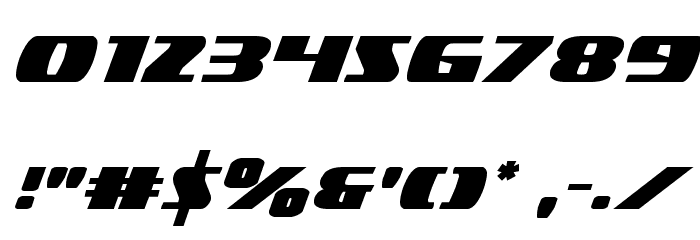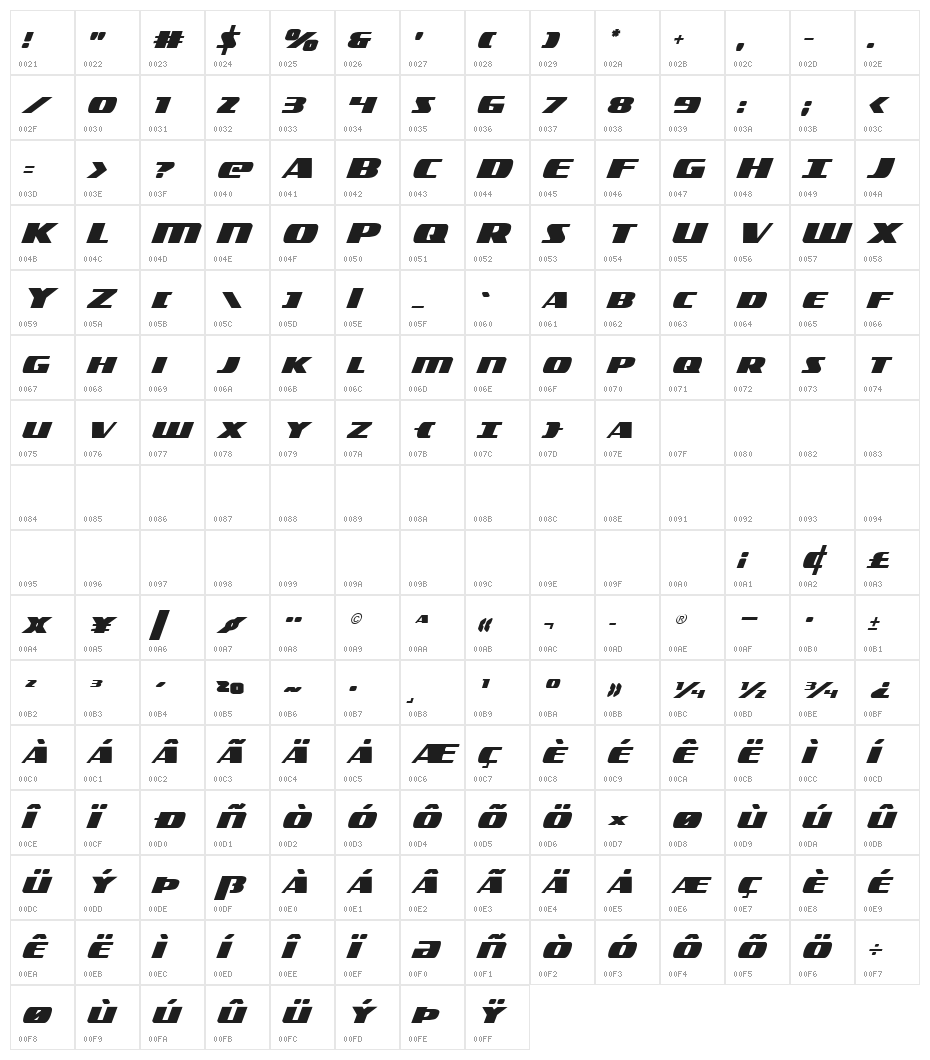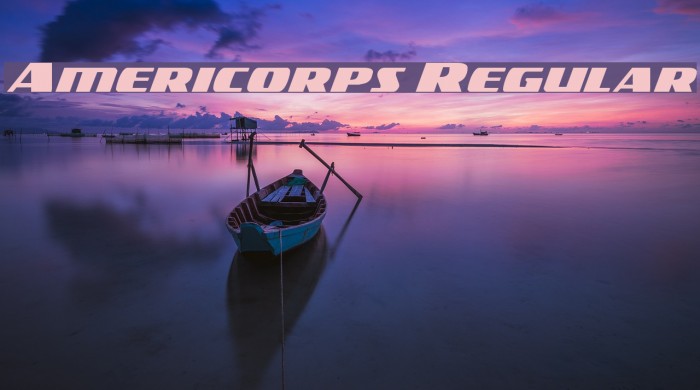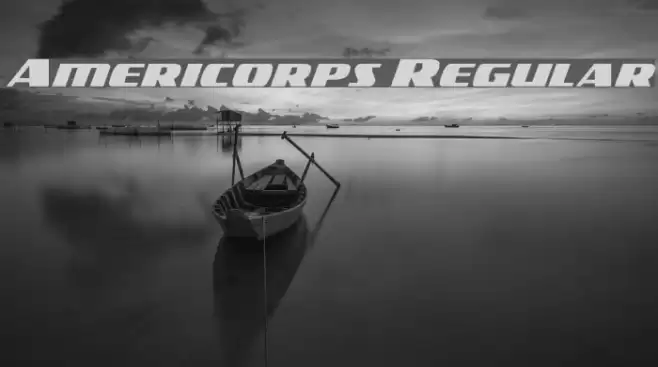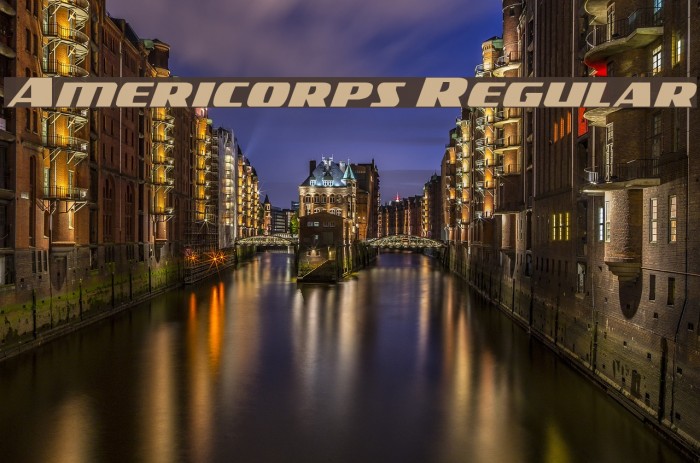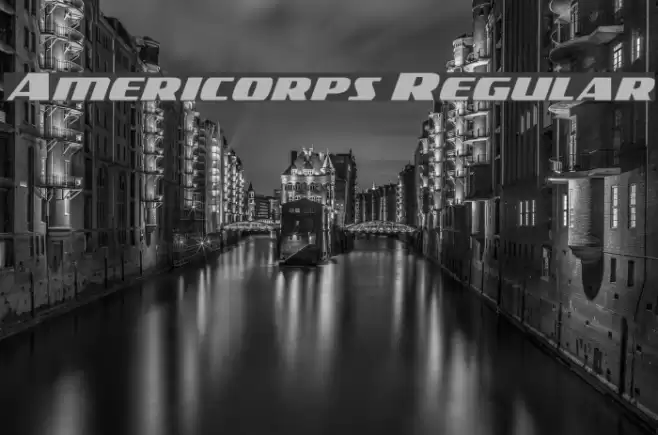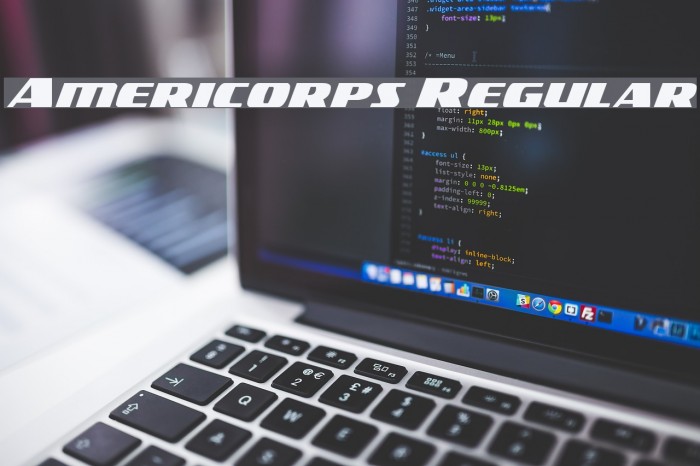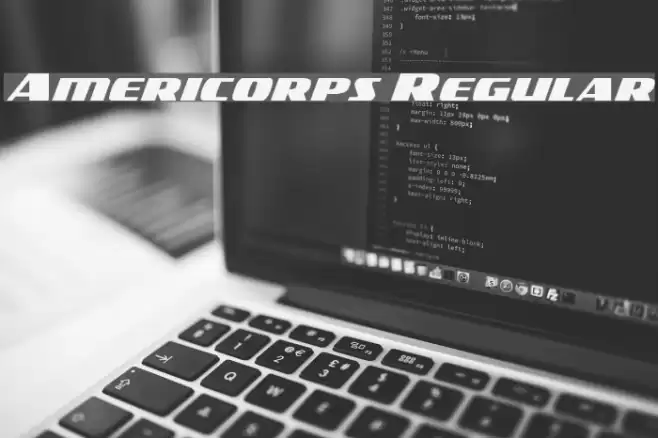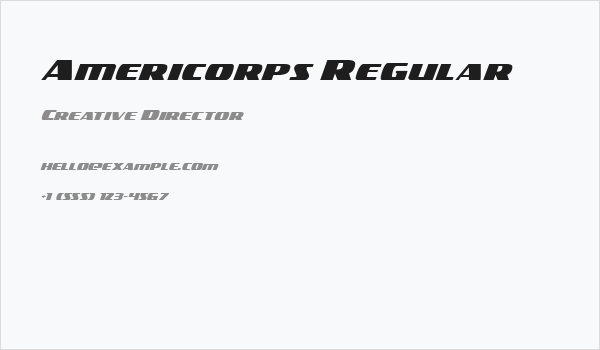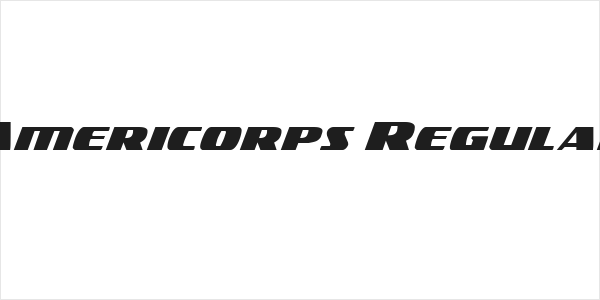
Americorps Regular Font
Americorps Regular Description
This font features a bold and dynamic style with a strong presence. The characters are slightly italicized, giving a sense of movement and energy. The strokes are thick and consistent, providing a robust and impactful appearance. The design is modern with a slight futuristic touch, making it suitable for attention-grabbing headlines and logos. The uppercase and lowercase letters maintain a uniform style, while the numbers and special characters complement the overall aesthetic. The font's angular edges and sharp lines contribute to its distinctive look.
| Proposed Projects | Ideal for sports branding, dynamic posters, futuristic designs, and impactful headlines. |